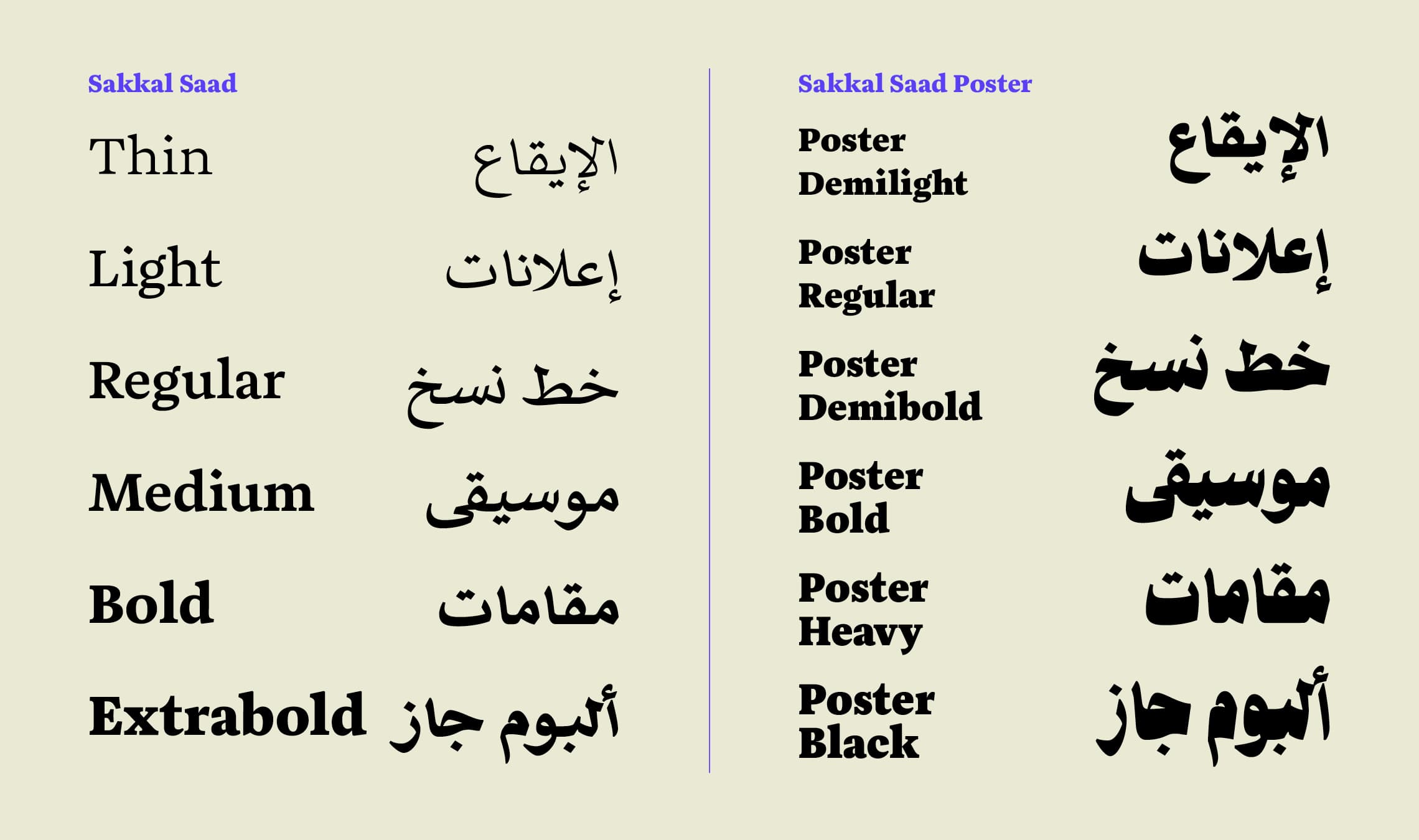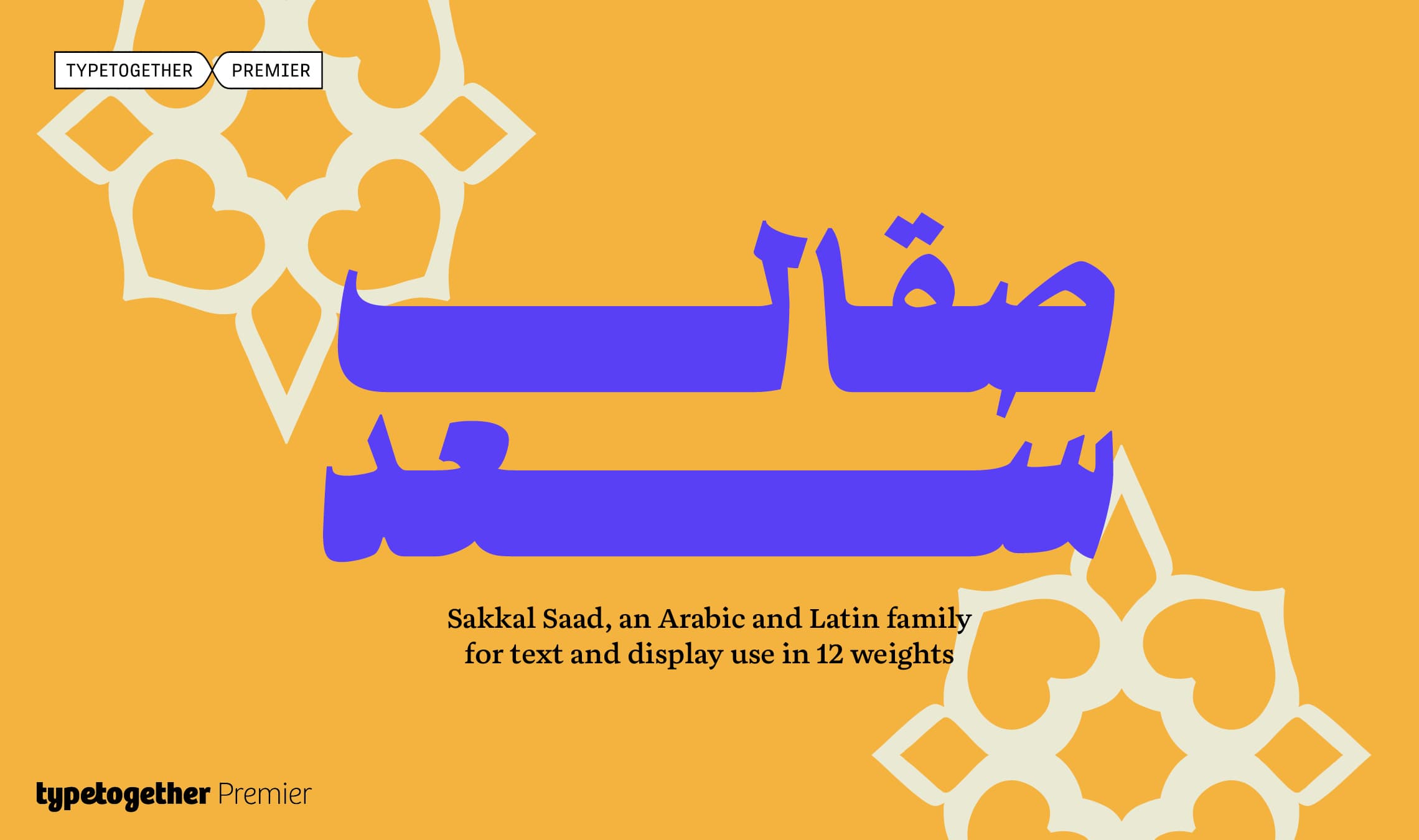
Sakkal Saad Premier release
We are excited to announce the release of Sakkal Saad, an Arabic typeface with 12 styles by Dr. Mamoun Sakkal and Aida Sakkal! The family communicates through both traditional and modern design elements: calligraphic beauty balanced by sharp pen strokes for a contemporary look that carries a dose of warmth. Just one important detail: it is currently only available on TypeTogether Premier.
Sakkal Saad is ideal for signage, branding, and long text settings, especially online and in books and magazines. Sakkal Saad Poster is great for display and advertising. With an included custom version of Aneto for Latin-based text, it provides clarity and graphic style in multiscript design and communication,